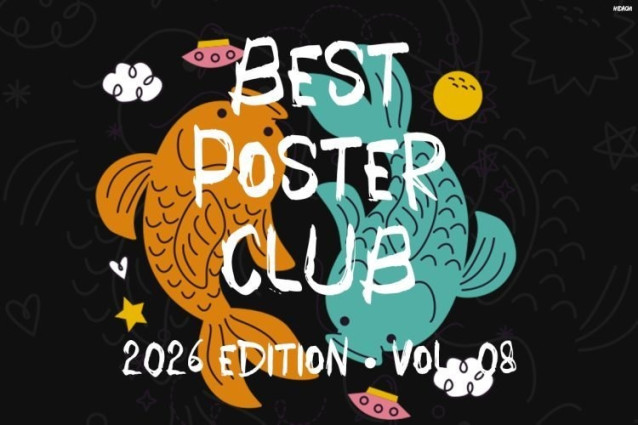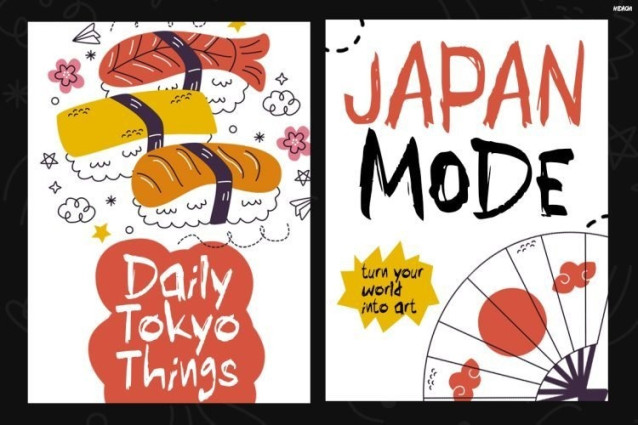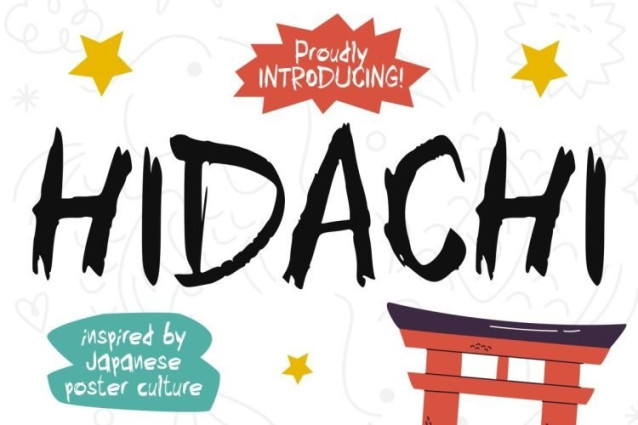
Hidachi Font
Hidachi Font is a playful handwritten display font inspired by Japanese culture and children’s creativity. It features bold brush strokes, quirky letterforms, and a charming handmade look. As a result, every design feels more lively and engaging. Moreover, its expressive style creates strong visual impact without losing readability. Inspired by festivals, stickers, and kawaii artwork, Hidachi adds a fun personality to any project. Therefore, it is perfect for designs that need a cheerful and artistic touch. Additionally, its handcrafted appearance makes every headline feel unique and memorable.
Kids Font Hidachi is perfect for children’s products, posters, packaging, stickers, and social media graphics. It also works well for educational materials, event promotions, and merchandise. Furthermore, its playful style shines in both print and digital designs. Meanwhile, its bold shapes help important messages stand out quickly.
This font is ideal for designers, illustrators, teachers, and content creators. In addition, small business owners can use it to create friendly branding. It is also great for crafters and anyone making kid-focused products. Most importantly, Hidachi suits projects that need fun, warmth, and creativity.Whether you’re creating branding, posters, or merchandise, Kids Font Hidachi adds instant character. So, add it to your font collection today. Then, create playful designs that capture attention and leave a lasting impression.